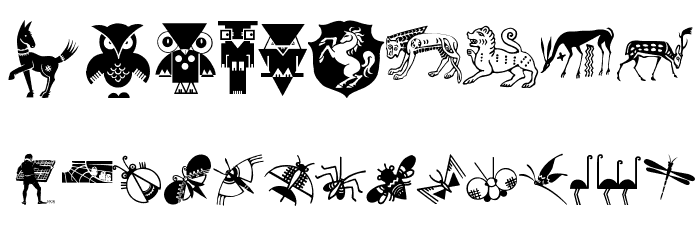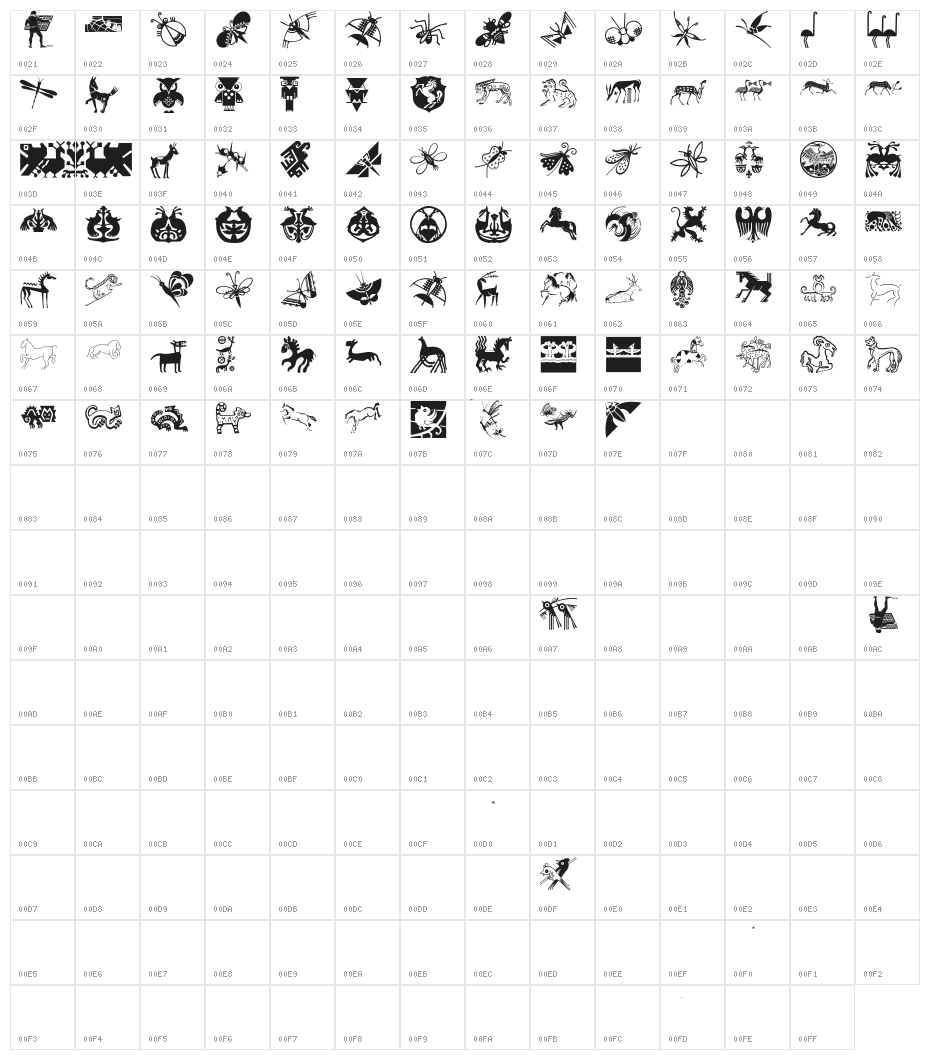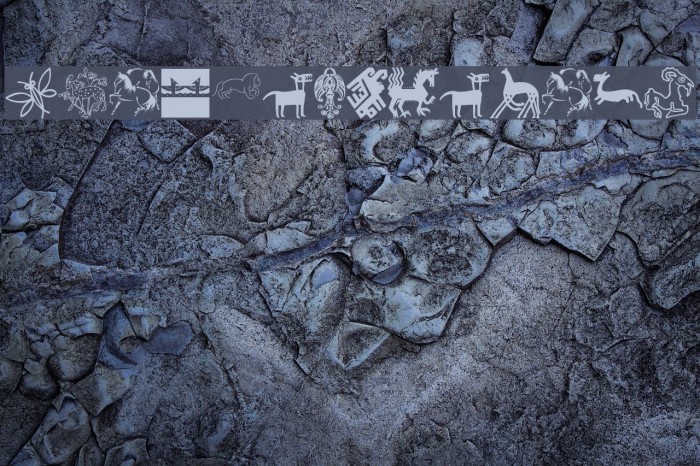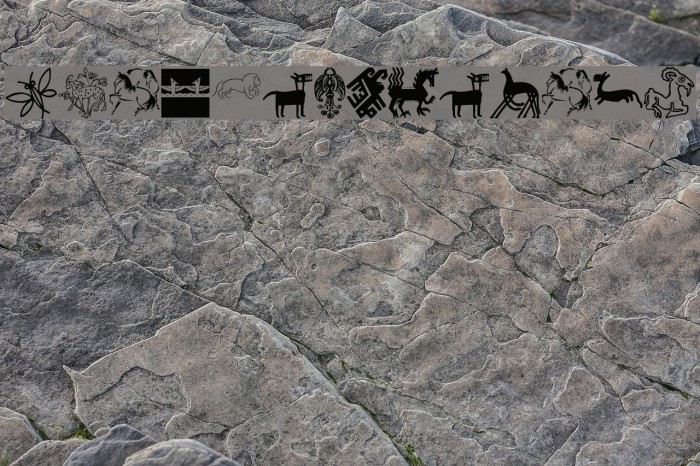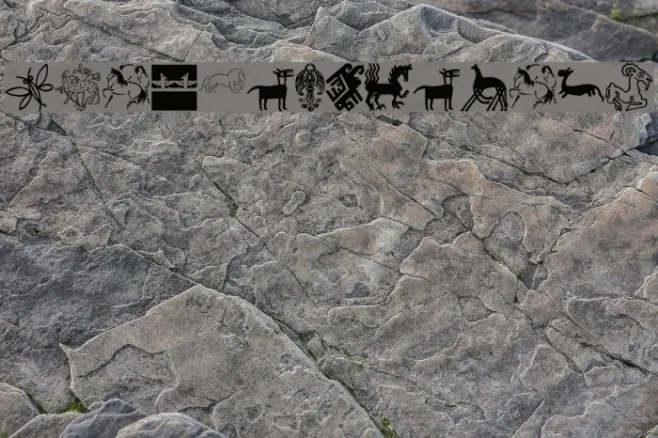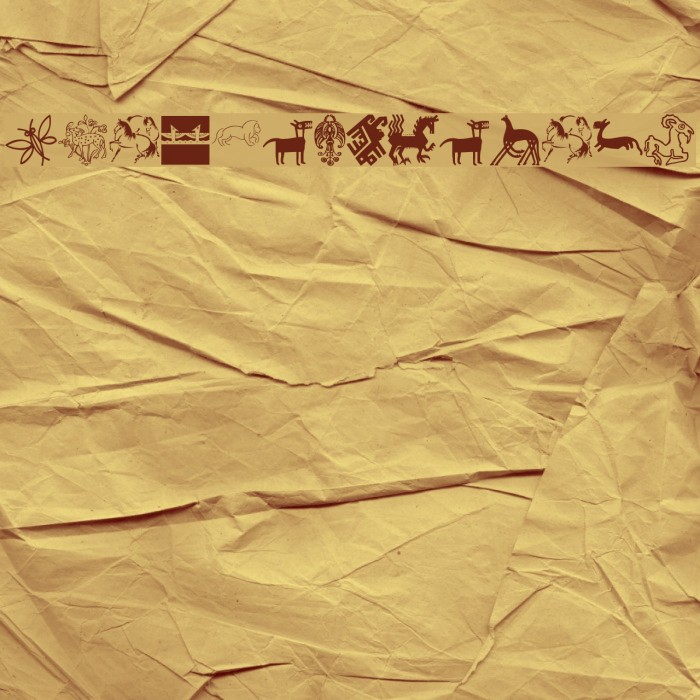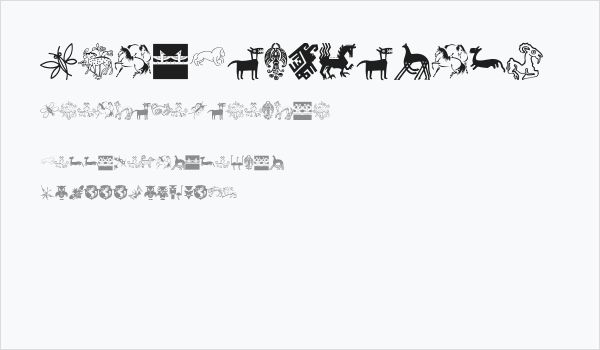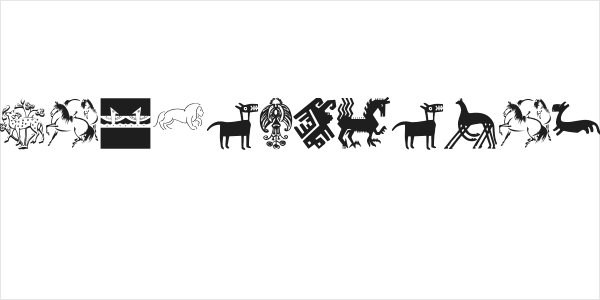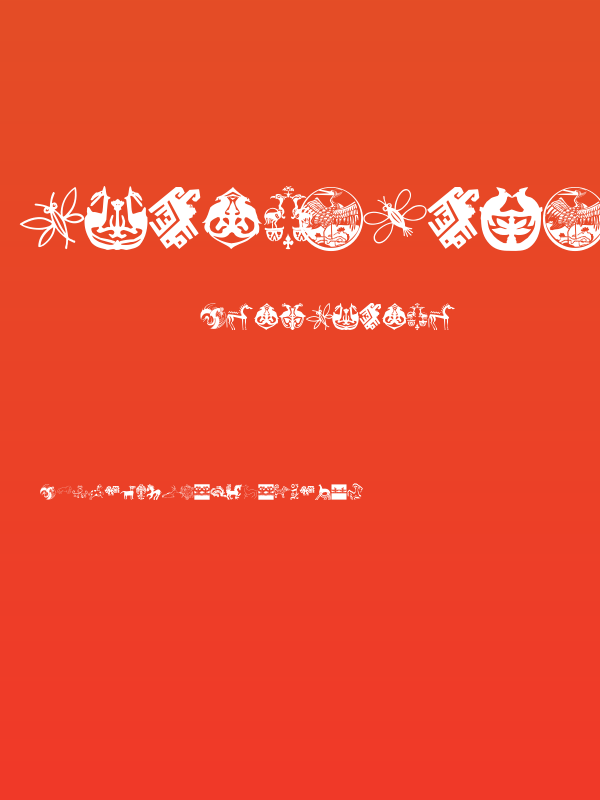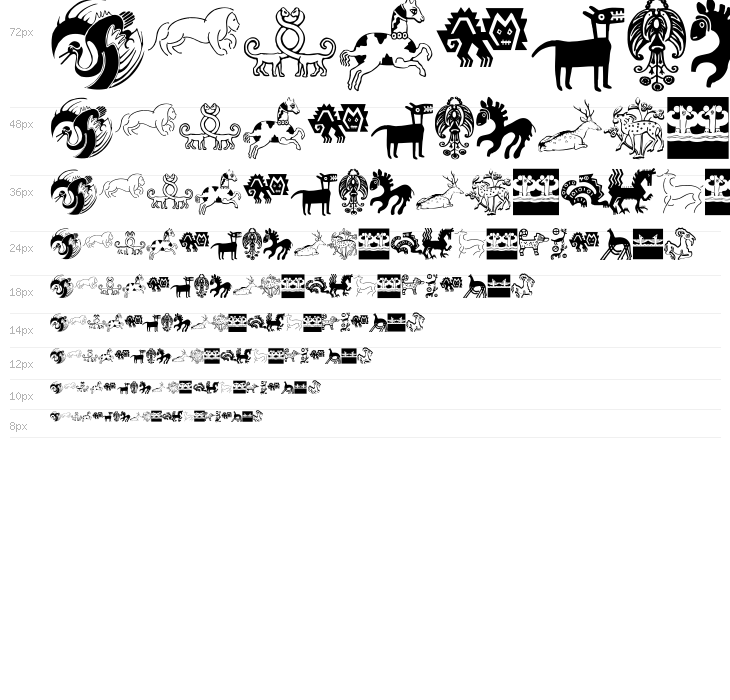
GraphicAnimals Font
GraphicAnimals Description
A decorative display font composed entirely of stylized animal and insect illustrations, each glyph representing a unique, graphic interpretation of various creatures. The designs range from abstract and geometric to organic and detailed, with both filled and outline styles present. The characters are highly illustrative, making them more suitable as pictograms or icons rather than traditional text.
| Overall Style | Decorative, Playful, Illustrative |
| Use Case | Logos, Icons, Posters, Educational Graphics |
| Proposed Projects | ChildrenΓ’β¬β’s books, educational materials, posters, themed event invitations, branding for zoos or wildlife organizations, decorative icons. |